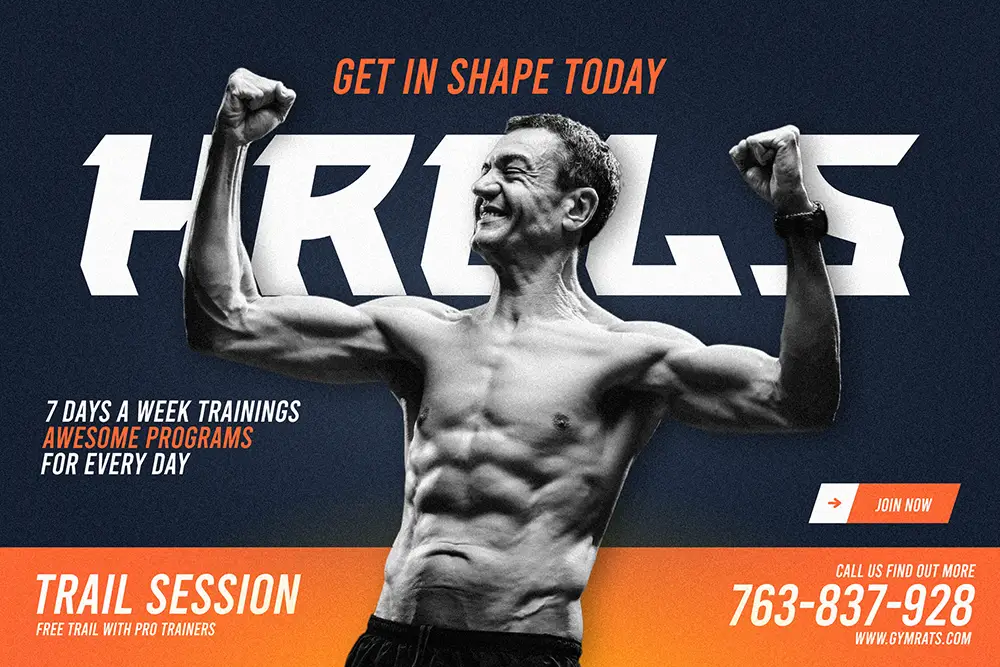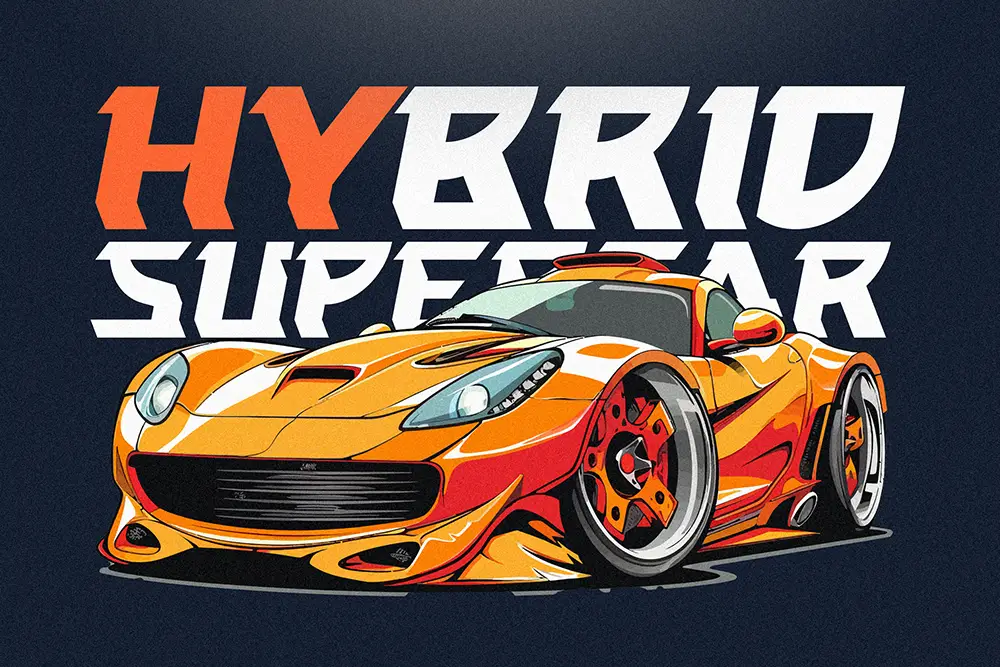
Typography plays a huge role in delivering emotion and energy to design. If you want to capture speed, power, and excitement in your work, Traveliner – Energetic Racing Font is the ultimate choice. Built for designers who need a high-impact typeface, this energetic font blends bold geometric shapes with fast-moving angles, creating an instant sense of momentum.
Whether you’re working on racing-themed posters, sports branding, energetic logos, or futuristic advertising, Traveliner ensures your designs will stand out.
A Font Built for Speed and Energy
Traveliner isn’t just another display typeface. It’s an energetic racing font crafted with sharp lines, slanted edges, and powerful strokes that simulate motion. The dynamic structure of its letters instantly communicates velocity and strength. That’s why this font is perfect for automotive projects, esports visuals, dynamic headlines, and bold product launches.
Unlike traditional fonts, Traveliner’s energy-driven design means your audience feels the thrill of speed right away. Every curve and corner reflects motion, making this energetic font the go-to typeface for designs that need adrenaline.
Key Features of Traveliner – Energetic Racing Font
When choosing a font, professional designers look for more than just style. Traveliner comes loaded with features that make it functional and versatile across projects:
- Uppercase & Lowercase: A complete set of characters for maximum flexibility.
- Multilingual Support: Extended Latin coverage for international design projects.
- Italic Version Included: Extra speed-inspired italic style to push the energy further.
- Bold Racing Look: Letters with sharp geometry and slanted forms to suggest motion.
- Perfect for Display Use: Works best in headlines, posters, banners, and branding.
Why Designers Love Traveliner
Designers choose Traveliner because it combines bold personality with usability. Many energetic fonts look great but lack readability. Traveliner solves this with perfectly crafted glyphs that balance energy and clarity.
Here’s why creative professionals love this typeface:
- Instant Impact: Traveliner makes any headline or logo pop with bold speed-inspired style.
- Flexibility: Both regular and italic versions expand creative possibilities.
- Global Appeal: With multilingual support, it’s ready for worldwide use.
- Professional Quality: Built for designers who value both aesthetics and practicality.
Perfect for Logos and Sports Branding
When creating sports team logos, racing visuals, or esports graphics, you need a typeface that conveys speed and intensity. Traveliner does exactly that. Its energetic racing font style is ideal for gaming tournaments, athletic events, and automotive promotions.
The sharp italic version takes the energy even further, giving your logo or banner that extra edge of movement. Brands that want to capture adrenaline and strength will find Traveliner indispensable.
Traveliner for Posters and Advertising
Posters demand attention, and Traveliner ensures your message never goes unnoticed. Its bold strokes and racing-inspired details grab the eye immediately, perfect for promoting events, launches, and concerts.
Unlike minimalist typefaces, this energetic font thrives when used in large, dynamic layouts. Whether you’re creating billboard advertisements, social media promos, or racing flyers, Traveliner guarantees your design speaks with speed and power.
Use Traveliner in Digital Media and Esports
In today’s fast-paced digital world, esports and online competitions need visuals that radiate energy. Traveliner’s futuristic style makes it the best energetic racing font for digital banners, Twitch overlays, YouTube thumbnails, and esports merchandise.
Its combination of bold uppercase characters and italic style communicates intensity and adrenaline, perfect for competitive gaming and high-energy branding.
Try Traveliner Yourself
- Font Name: Traveliner – Energetic Racing Font
- Character Set: Uppercase, Lowercase, Numbers, Punctuation
- Category: Energetic Racing Font / Modern Display
- Best Uses: Logos, Sports Branding, Posters, Automotive Projects, Esports, Digital Media
Font Pairing Ideas
Traveliner works beautifully when paired with fonts that contrast its bold, fast-moving style. For instance, try pairing Traveliner with Brother Hoops Classy Brush Font. The brush strokes bring an organic touch to Traveliner’s structured racing look, creating a balanced yet dynamic aesthetic.
Traveliner – Energetic Racing Font is more than just a typeface. It’s a high-octane design weapon built for creatives who want speed, power, and impact in their work. With its bold shapes, italic style, and multilingual support, it delivers both style and function.